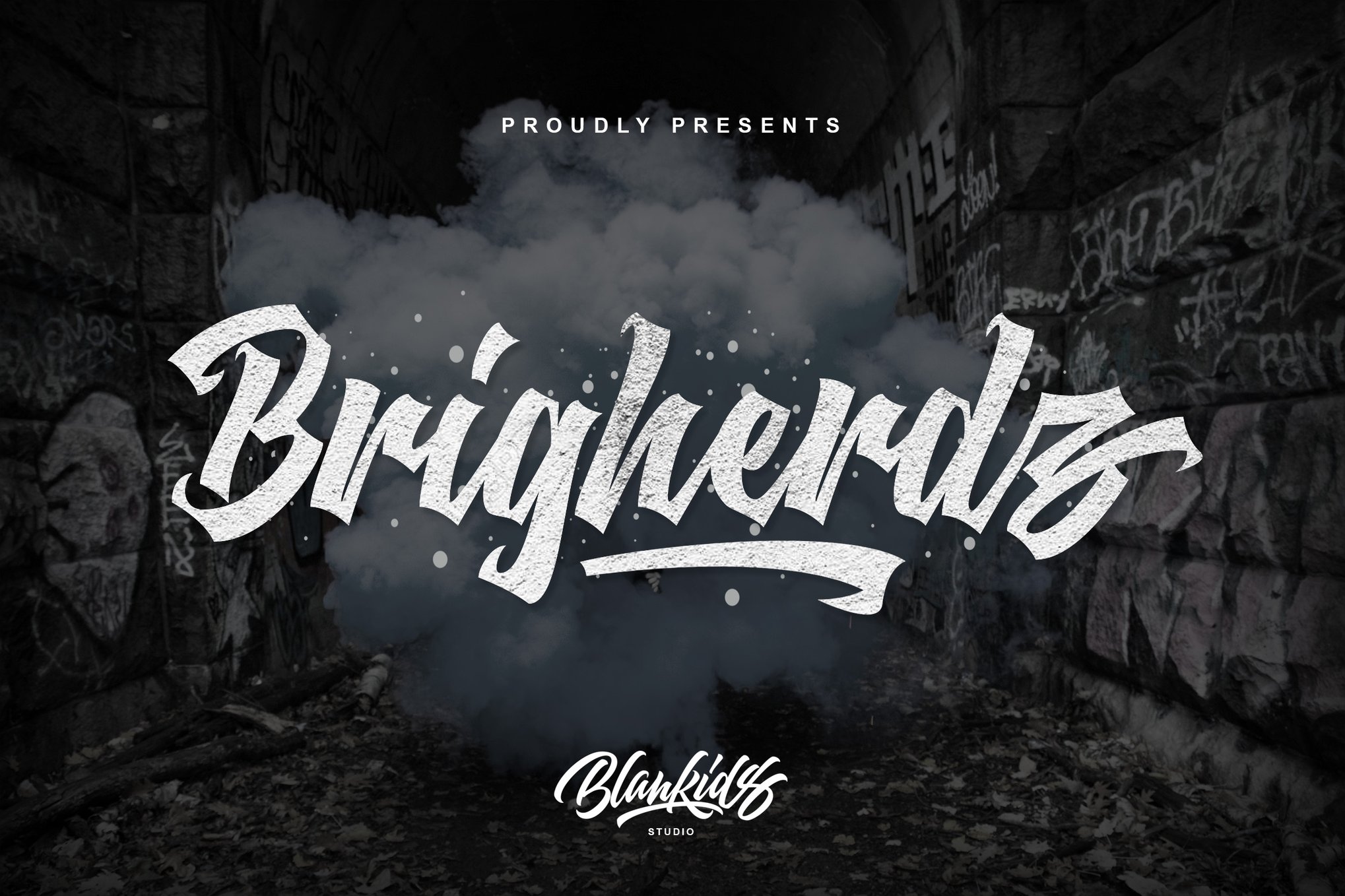
Brigherdz Urban Script Font
Brigherdz Urban Script Font is perfect for streetwear brand logos, urban music album covers, hip-hop event posters, street art gallery materials, modern city lifestyle campaigns, youth culture branding, urban fitness centers, contemporary graffiti-inspired designs, metropolitan fashion labels, and dynamic street culture communications.
Brigherdz Urban Script Font is exciting because it perfectly captures the vibrant energy and creative spirit of contemporary street culture, creating a script typeface that embodies the raw authenticity, artistic expression, and dynamic movement that defines modern urban life. This font brings street-smart sophistication and urban credibility to any project, making it ideal for brands that want to convey authenticity, creativity, and the pulsating energy of city culture. Its urban character and street-inspired appeal create an atmosphere of metropolitan coolness that resonates with audiences who live and breathe the rhythm of urban streets.
This dynamic street script typeface combines urban aesthetics with contemporary design functionality, making Brigherdz Urban Script Font Free Download an outstanding choice for projects celebrating metropolitan culture and street artistry. The font's energetically crafted letterforms feature urban proportions and street-inspired styling that reflect the creative energy and artistic authenticity of contemporary urban expression.
Whether you're designing streetwear fashion branding, urban music venue materials, or metropolitan lifestyle campaigns, Brigherdz Urban Script Font delivers unmatched street authenticity and urban appeal. The font excels in both large-scale urban applications and detailed street designs where metropolitan character and urban creativity create memorable street culture experiences.
Urban culture professionals choose Brigherdz Urban Script Font for its ability to instantly communicate street credibility and urban authenticity while creating emotional connections with audiences seeking genuine metropolitan experiences and street culture expression. The font's dynamic character makes it particularly effective for streetwear brands, urban venues, and metropolitan lifestyle companies.
Each character reflects the energetic flow of urban creativity, featuring street-smart construction and metropolitan proportions that create typography as dynamic and authentic as street murals, urban dance, and the vibrant pulse of city life.